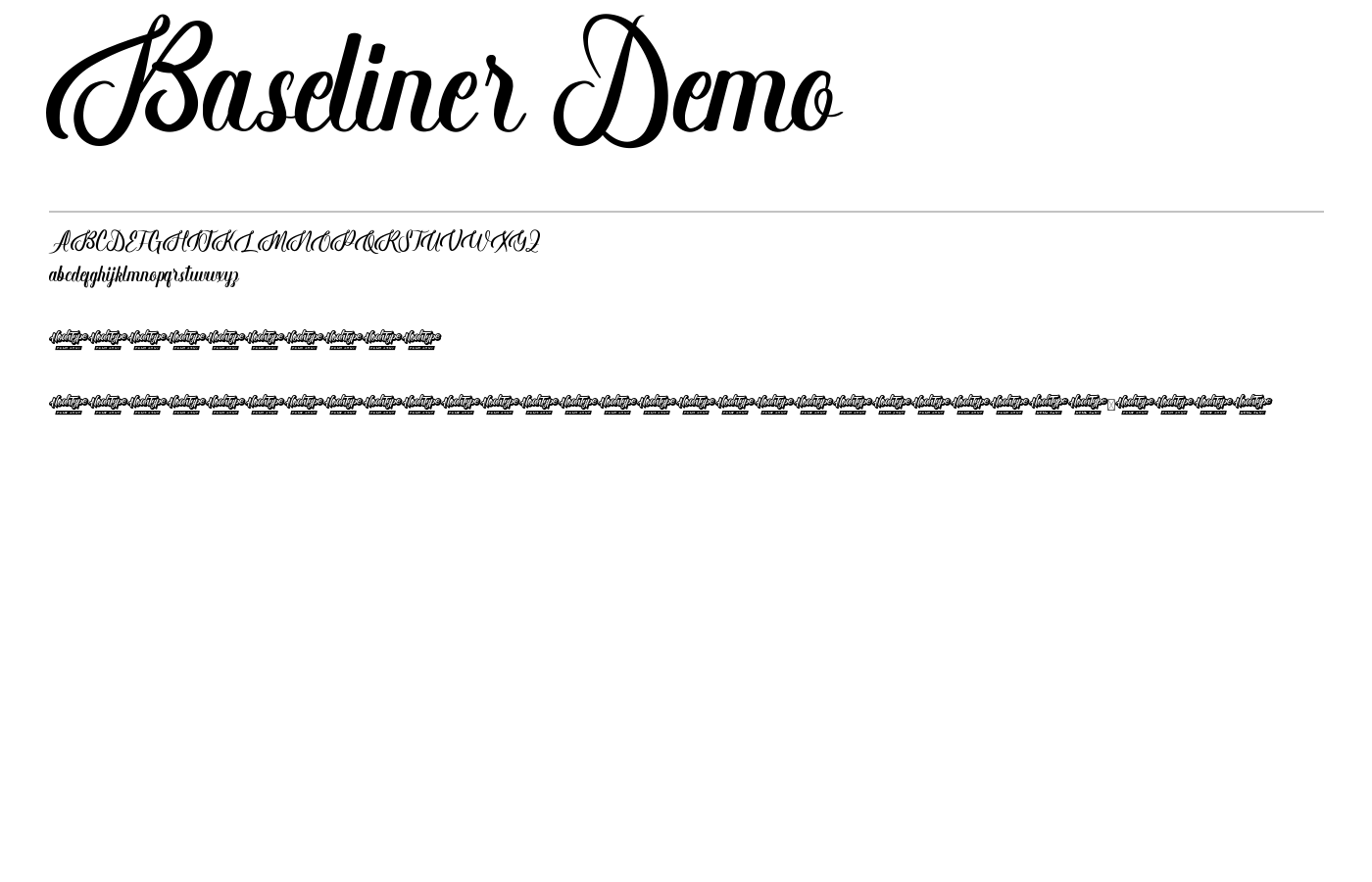
Baseliner Demo is an elegant script font with a refined, calligraphic style that conveys sophistication and grace. Its flowing, connected letterforms and moderate stroke contrast create a stylish, vintage feel, making it ideal for branding, invitations, and decorative headlines. This font works beautifully where a classy, handcrafted look is desired.
Baseliner Demo Font
About Baseliner Demo Font
| Font family | Baseliner Demo Font |
| Designer | Widiyanti & Sarah SP |